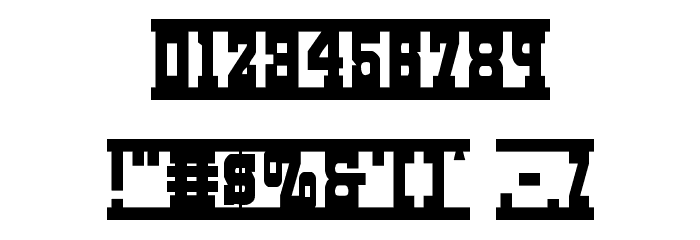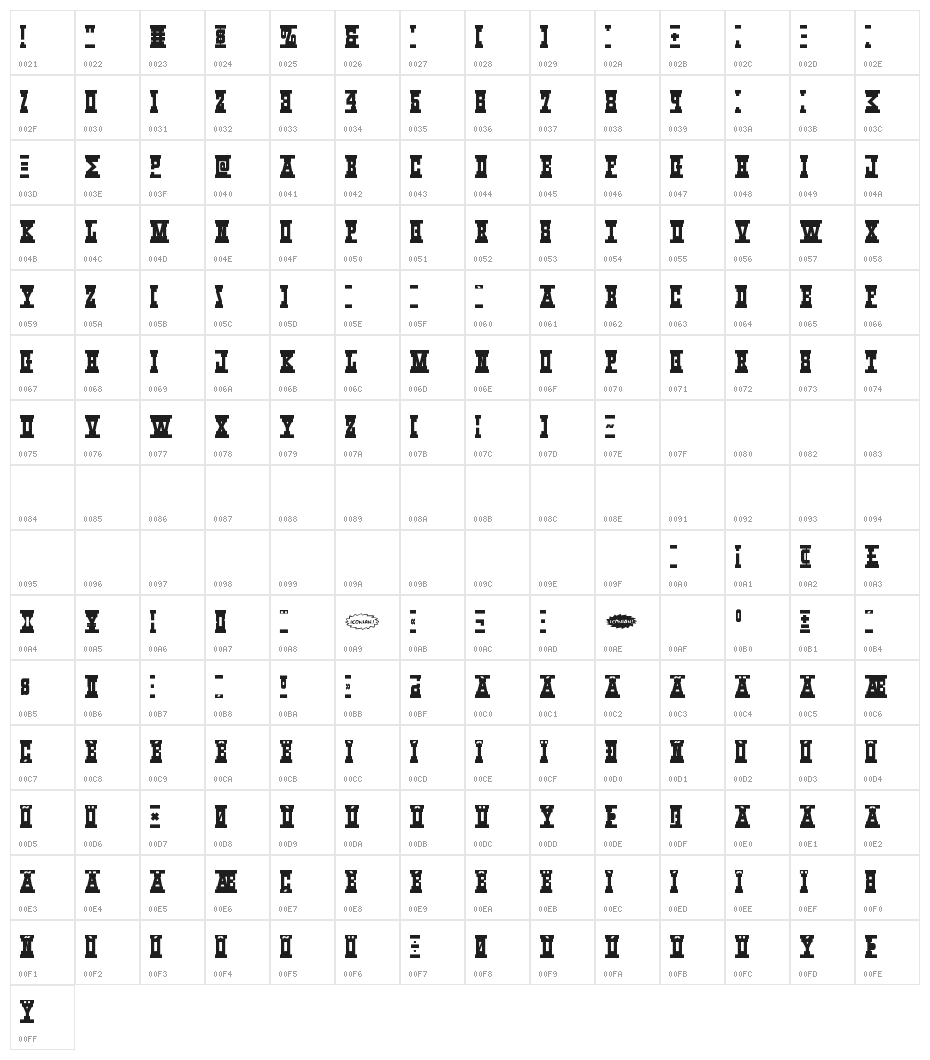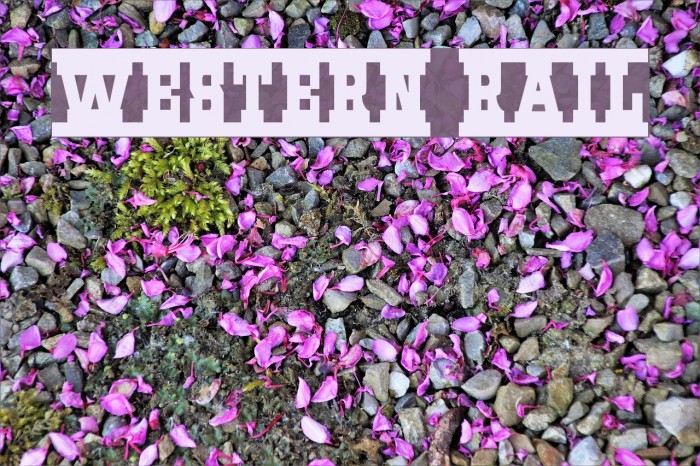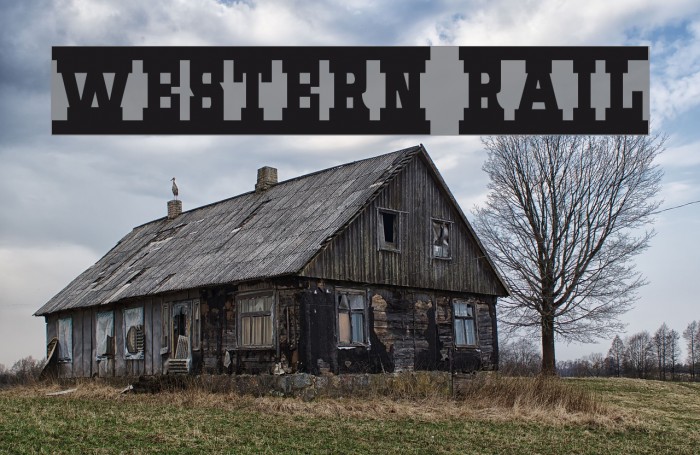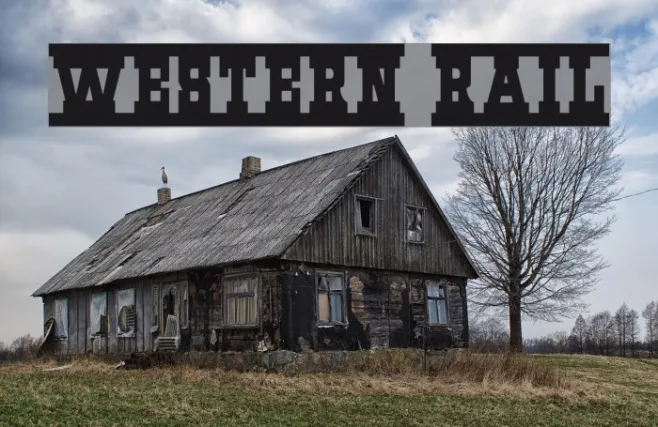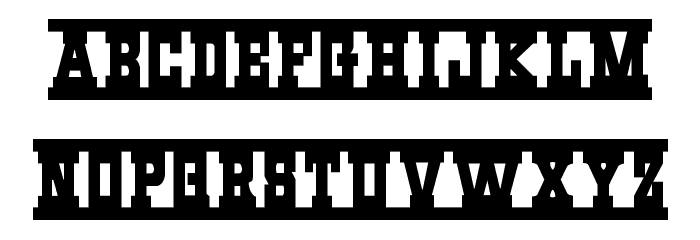
Western Rail Font
Western Rail Description
This font exudes a bold and rugged aesthetic, reminiscent of the classic Western style. The characters are heavily stylized with thick, blocky serifs and a strong presence, making it ideal for creating a vintage or rustic feel. Each letter is distinct, with sharp angles and a solid structure that conveys strength and durability. The numbers and special characters follow the same design principles, ensuring a cohesive look across all text elements. This font is perfect for projects that require a touch of the Old West, such as posters, signage, or branding for themed events.
| Proposed Projects | Ideal for Western-themed posters, signage, branding, and event materials. |